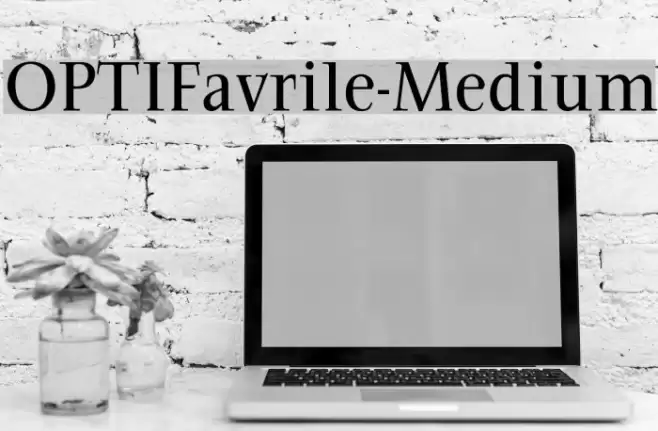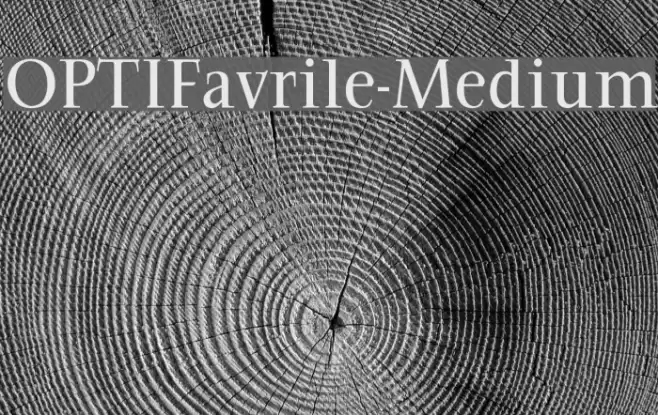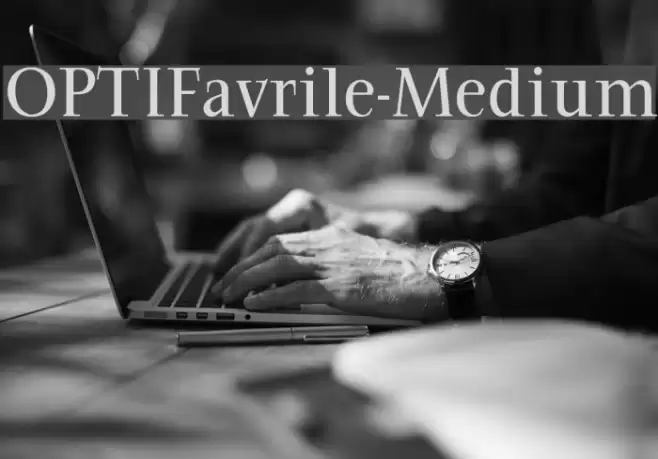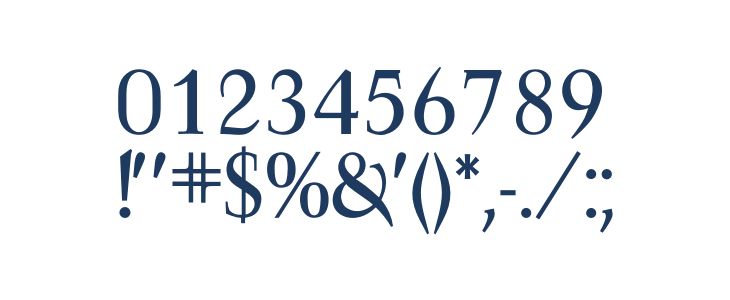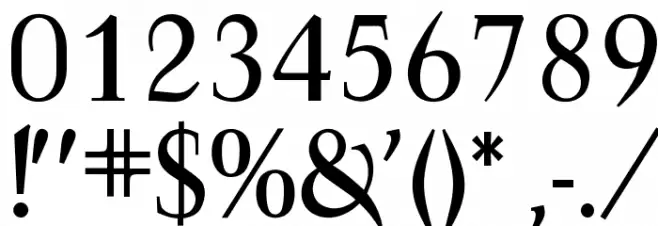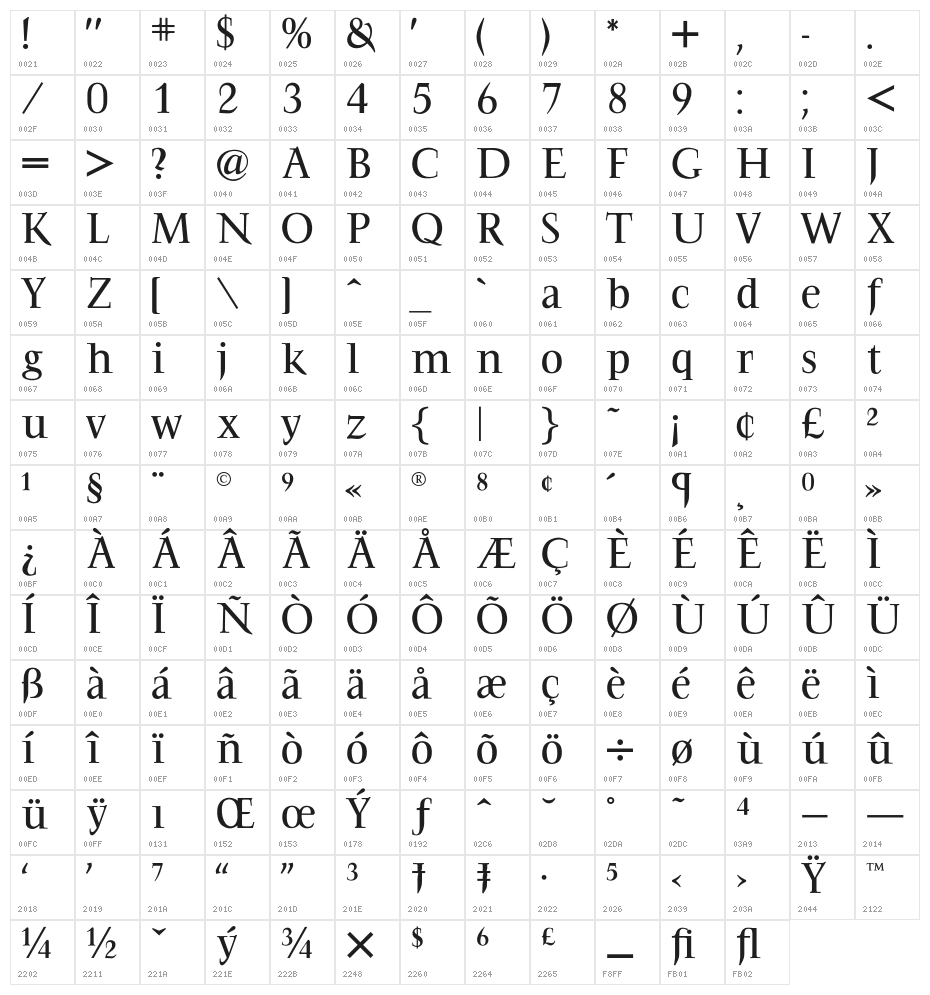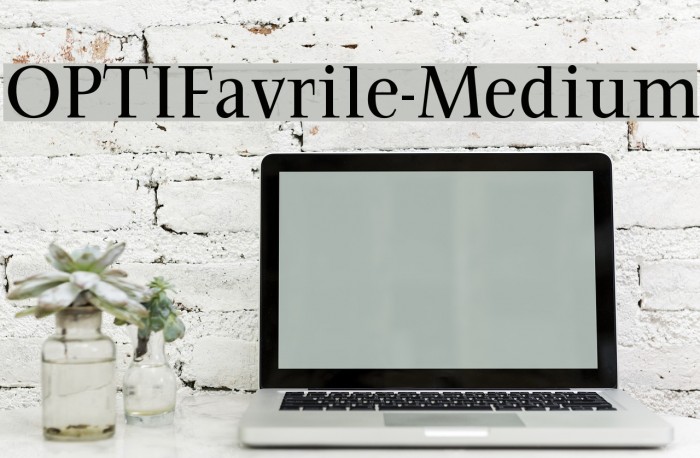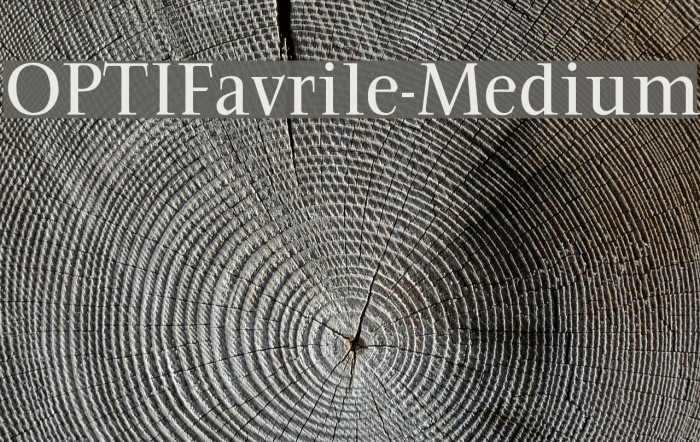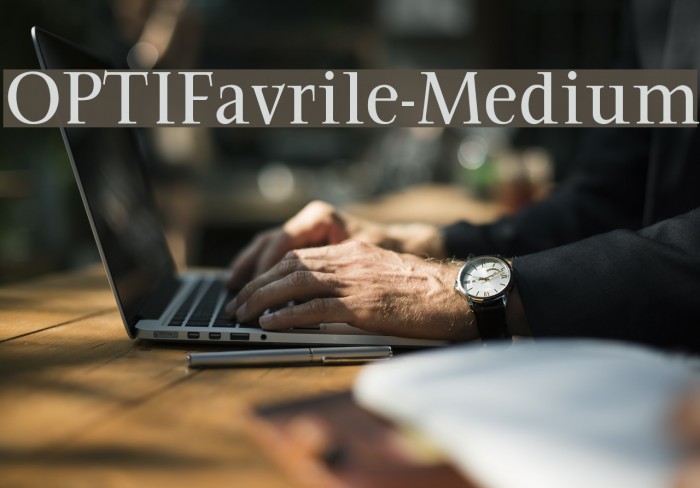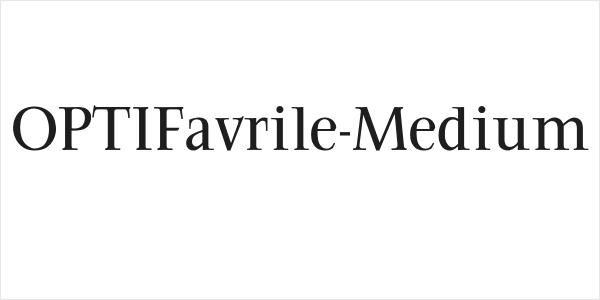
OPTIFavrile-Medium Font
OPTIFavrile-Medium Description
This typeface features a classic serif design with elegant and refined strokes. The uppercase letters are bold and commanding, while the lowercase letters maintain a consistent and harmonious flow. The numerals are clear and legible, making them suitable for various applications. Special characters are thoughtfully designed, adding to the font's versatility. The overall appearance is sophisticated, making it ideal for projects that require a touch of elegance and tradition.
A classic serif typeface with elegant strokes and refined design from Uncategorized fonts.
- Proposed Projects: Ideal for book covers, formal invitations, branding materials, and editorial design.
- Overall Style: Classic